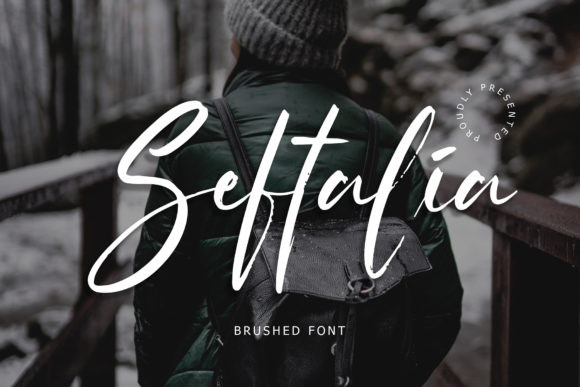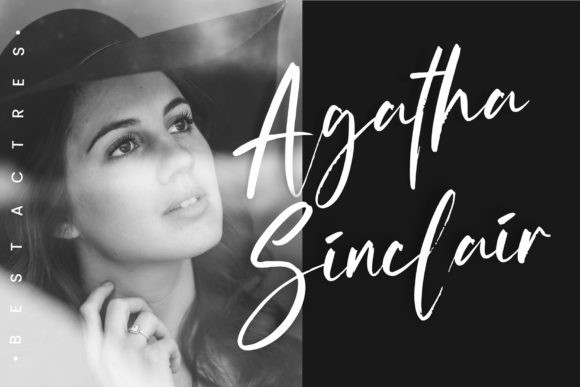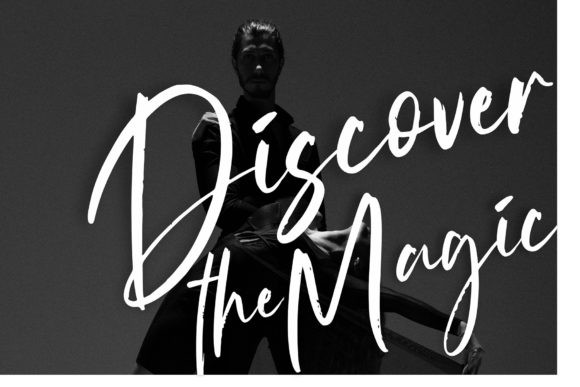
Seftalia Font
Seftalia is a refined and incredibly elegant script font. Relaxed and stylish, this font will instantly elevate each of your designs. Fall in love with its incredibly versatile style and use it to create spectacular designs!